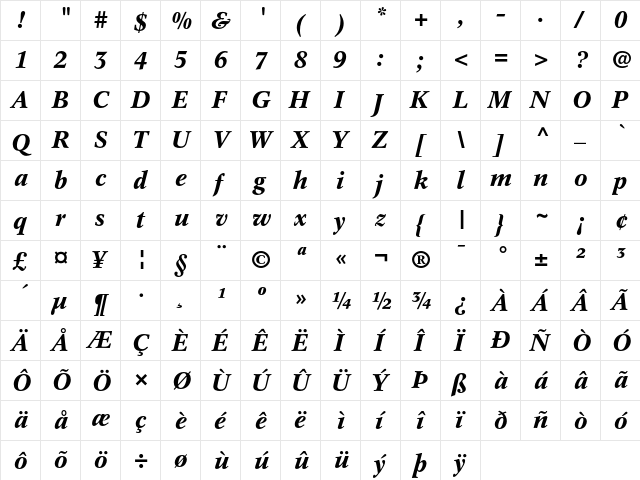
Concorde Regular
Design Context for Concorde Typeface
Concorde is a composed and adaptable typeface that performs quietly and consistently across a wide range of design contexts.